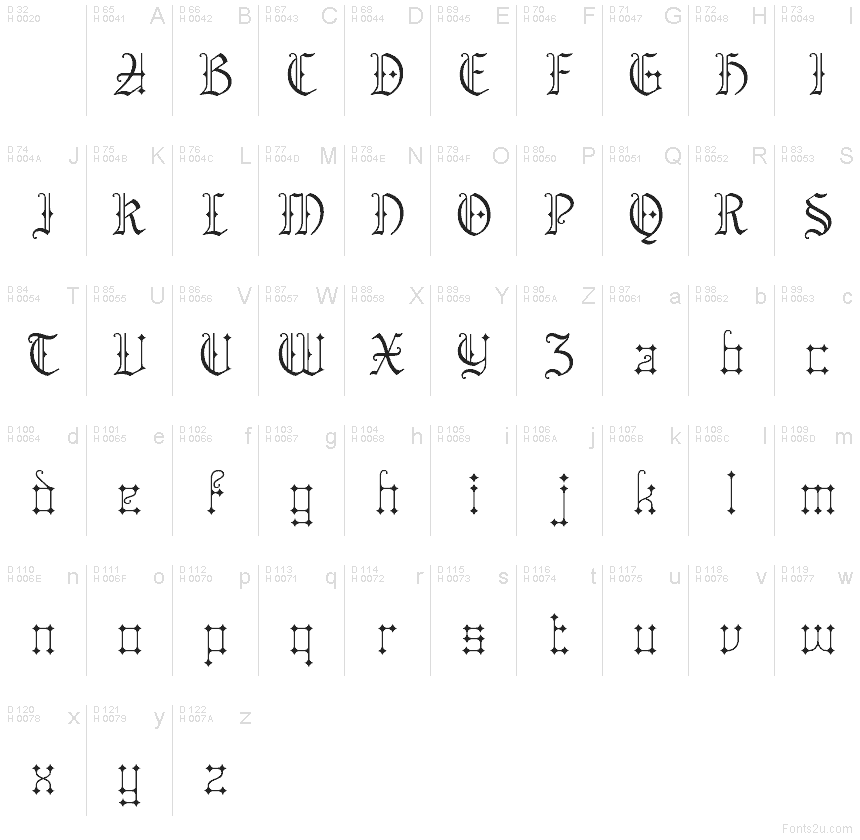
CS Bastille Regular Demo
CS Bastille font by Craft Supply Co. embodies the allure of medieval design with its Gothic and traditional style. Exuding historical and ornamental qualities, it combines contemporary feel with ancient details to offer a unique free gothic font for multiple uses.